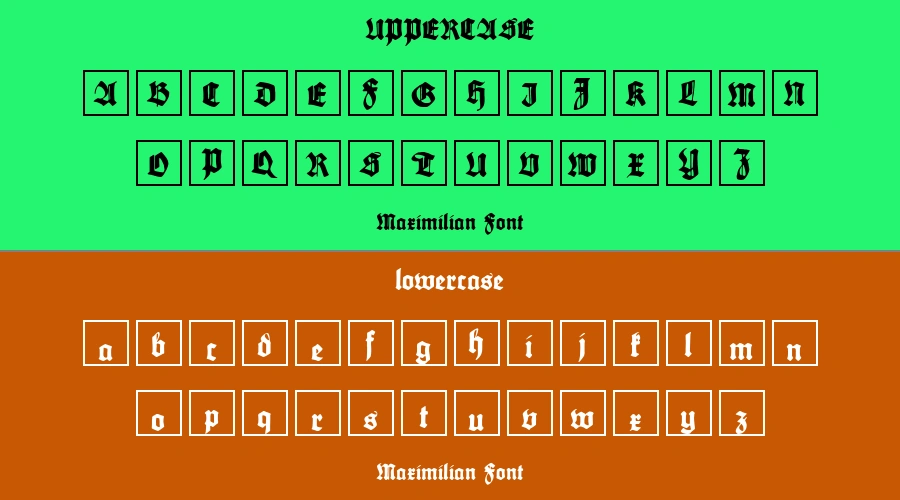
About Maximilian Font
Maximilian Font stands out for its distinctive combination of contextual swashes and versatility. Ideal for brand identities, it provides the integrity and adaptability that professional projects demand. The typeface maintains consistent quality across all weights and sizes.
Key features include refined decorative alternates and practical stylistic sets, enhancing typographic expression. In pull quotes applications, Maximilian Font demonstrates exceptional color application. The ascender height and design lineage contribute to its distinctive character and professional appeal.